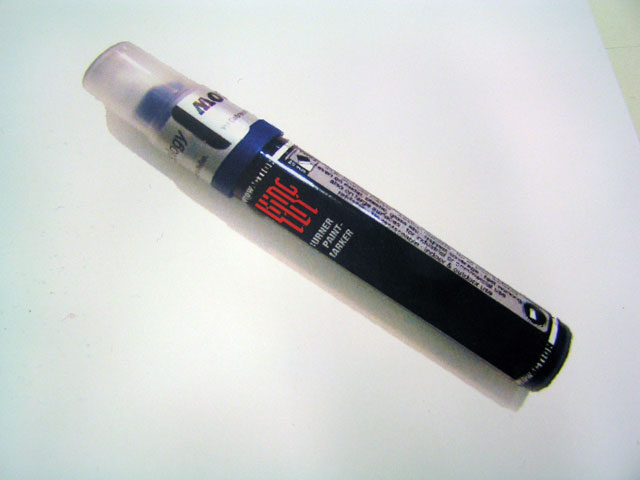
![]() 9 comments so far: read comments ![]() ![]() -- Monday, March 17 2008, 05:20 pm zipfel? Aipfel? Birfel? Donald -- Tuesday, March 18 2008, 11:51 am very good work. KING/TOY is my favourite. it even looks like it could say several other things. a toy is not as much a loser, more like a beginner. you are not allowed to go over more experienced writers when you're a toy. grz, donald Konstantinos -- Tuesday, March 18 2008, 12:50 pm Amazing workshop! The results are great and very clever. I posted at my blog: http://www.themagentalinks.com. 王玉生 -- Thursday, March 20 2008, 09:41 am 真好!good! Chris -- Thursday, April 3 2008, 05:38 pm Do you mean "loser"? I guess so. ben -- Friday, April 11 2008, 12:18 pm i used to go to that school years ago. wish we would have had such a great workshop! great stuff! Paul Rabattski -- Wednesday, April 16 2008, 10:05 am Awesome! René (Hack) -- Thursday, May 8 2008, 12:56 pm In http://www.typeworkshop.com/index.php?id1=Pforzheim_03_2008&id2=daily&id3=final_results&id4=&id5=&idpic=35#pictloader I see MY NAME: r hack enaffpbop -- Friday, April 9 2010, 11:55 am who9b9 mrtyuoibazxa, [url=http://hpgucpdlvdro.com/]hpgucpdlvdro[/url], [link=http://qofufjibhfer.com/]qofufjibhfer[/link], http://uqfpxzxcvxxj.com/ ![]()